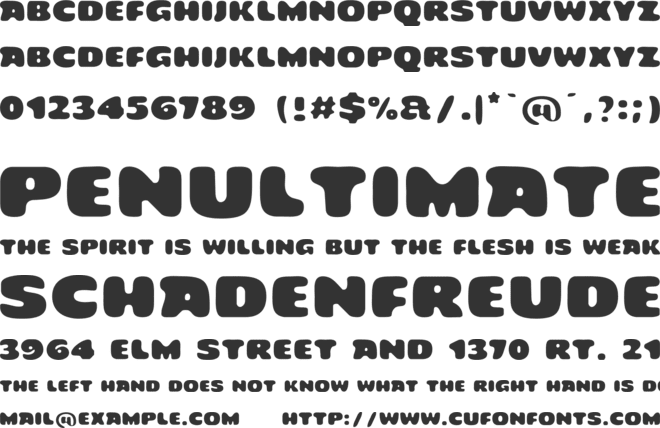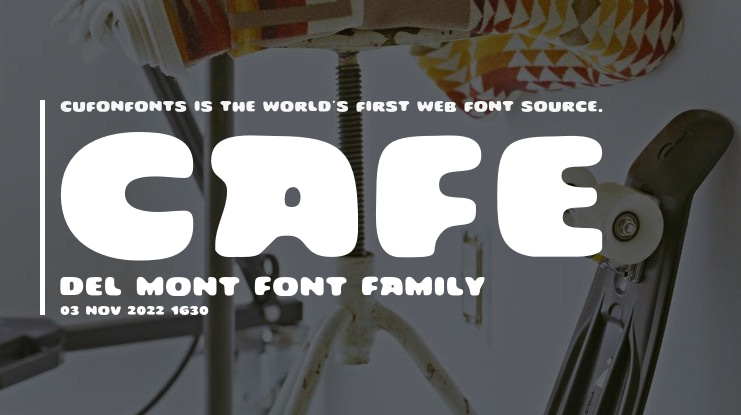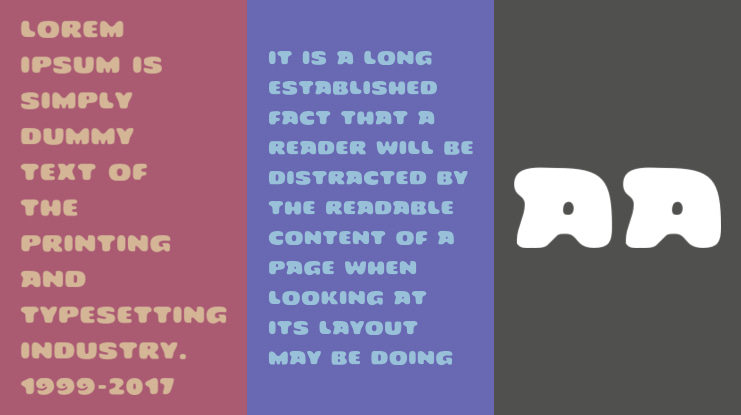
Cafe Del Mont is a bold handwritten sans-serif font infused with a warm
organic vintage vibe. Crafted to look naturally handwritten with
confident strokes, it delivers a friendly yet strong character—perfect for
designs that seek an authentic and approachable feel.